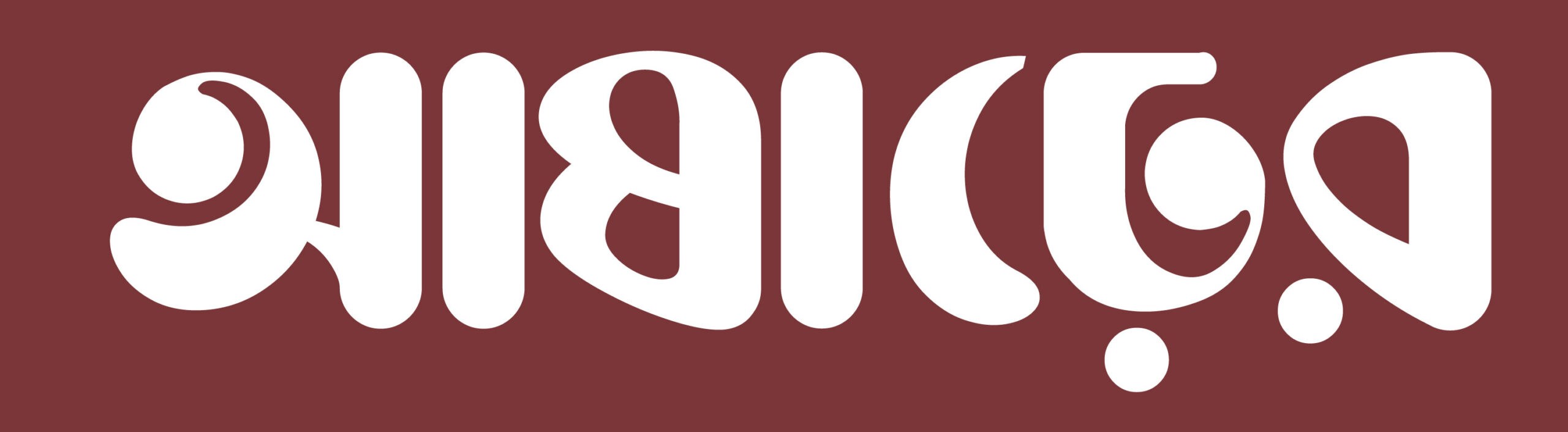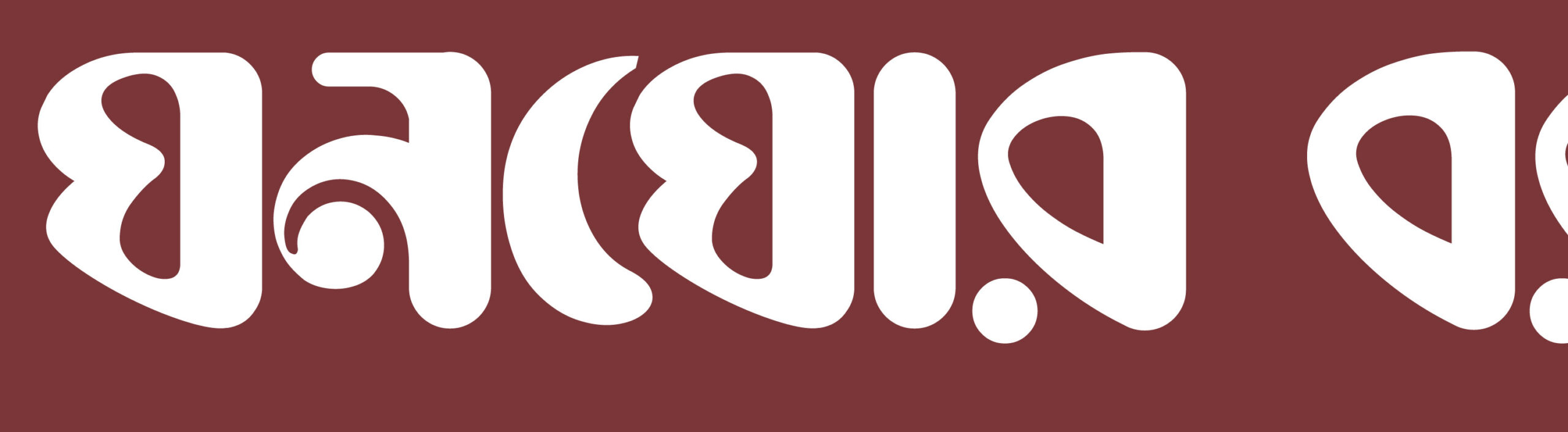
Asharh
Asharh Bangla Font captures the lush, rain-soaked essence of the Bengali monsoon with a design that is both bold and fluid. Crafted entirely with curves and without sharp corners, it reflects the softness and natural flow of rainfall, rolling clouds, and swaying trees. Each stroke tapers at one end and thickens at the other, creating rhythmic movement that mirrors water flowing over leaves or puddles forming on wet earth. This fluidity gives the font a natural, organic appearance, making it warm, approachable, and visually engaging.
Despite its bold presence, Asharh Bangla Font maintains excellent legibility, making it suitable for headlines, titles, posters, and event branding. The dynamic thick-to-thin transitions in its strokes add energy and life to the letters, evoking the sensory experience of the monsoon—the humid air, wet soil, and refreshing coolness. Words set in Asharh Bangla Font seem to flow like rainwater, giving designs a seasonal and cultural atmosphere that connects deeply with Bengali heritage.
Asharh Bangla Font balances modern minimalism with traditional Bengali script characteristics. Its smooth curves and rhythmic forms respect cultural authenticity while introducing contemporary visual appeal. This makes it highly versatile for both digital and print use, from editorial layouts and social media graphics to festival posters, event invitations, and cultural branding. The font’s bold yet flowing structure ensures readability at different sizes while retaining a unique, artistic charm.
The design draws inspiration directly from the monsoon landscape. Rolling clouds, bending leaves, and flowing water informed the shape and rhythm of each letter, creating a font that conveys motion and natural harmony. Its calligraphic influence adds elegance and softness, while the bold forms ensure that Asharh Bangla Font stands out in display applications. This combination makes it ideal for projects seeking both aesthetic beauty and functional clarity.
Asharh Bangla Font is more than a typeface—it’s a way to communicate the spirit of the monsoon. Its flowing curves and dynamic strokes allow designers to create work that feels alive, seasonal, and culturally resonant. Titles, posters, invitations, and branding projects benefit from its energy, while smaller text remains readable and visually appealing. Its organic, nature-inspired design ensures that every project gains a sense of freshness, rhythm, and emotion.
Functionality and versatility are key strengths of Asharh Bangla Font. The careful balance between boldness and softness allows it to be used in a wide range of design contexts. From editorial spreads and digital interfaces to festival campaigns and cultural promotions, this font communicates both clarity and creativity. Designers can rely on its legibility, consistency, and unique monsoon-inspired character for high-impact visual storytelling.